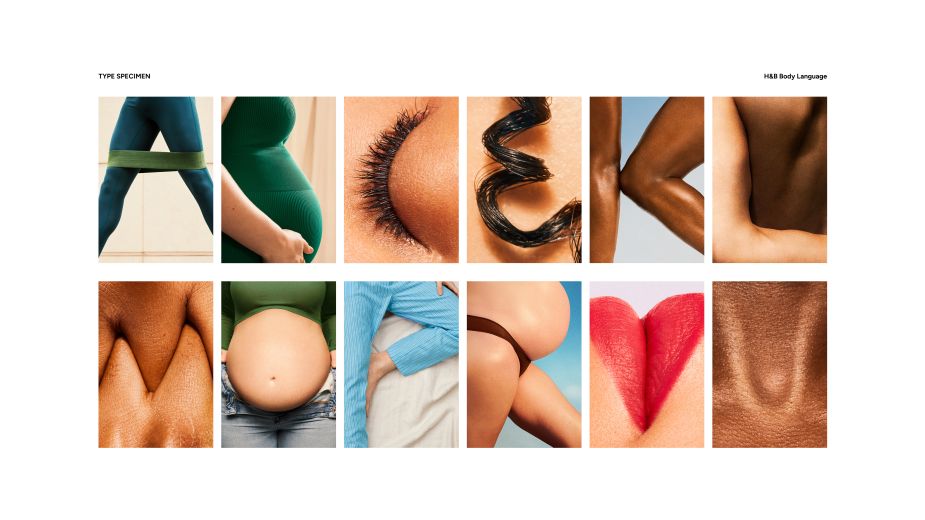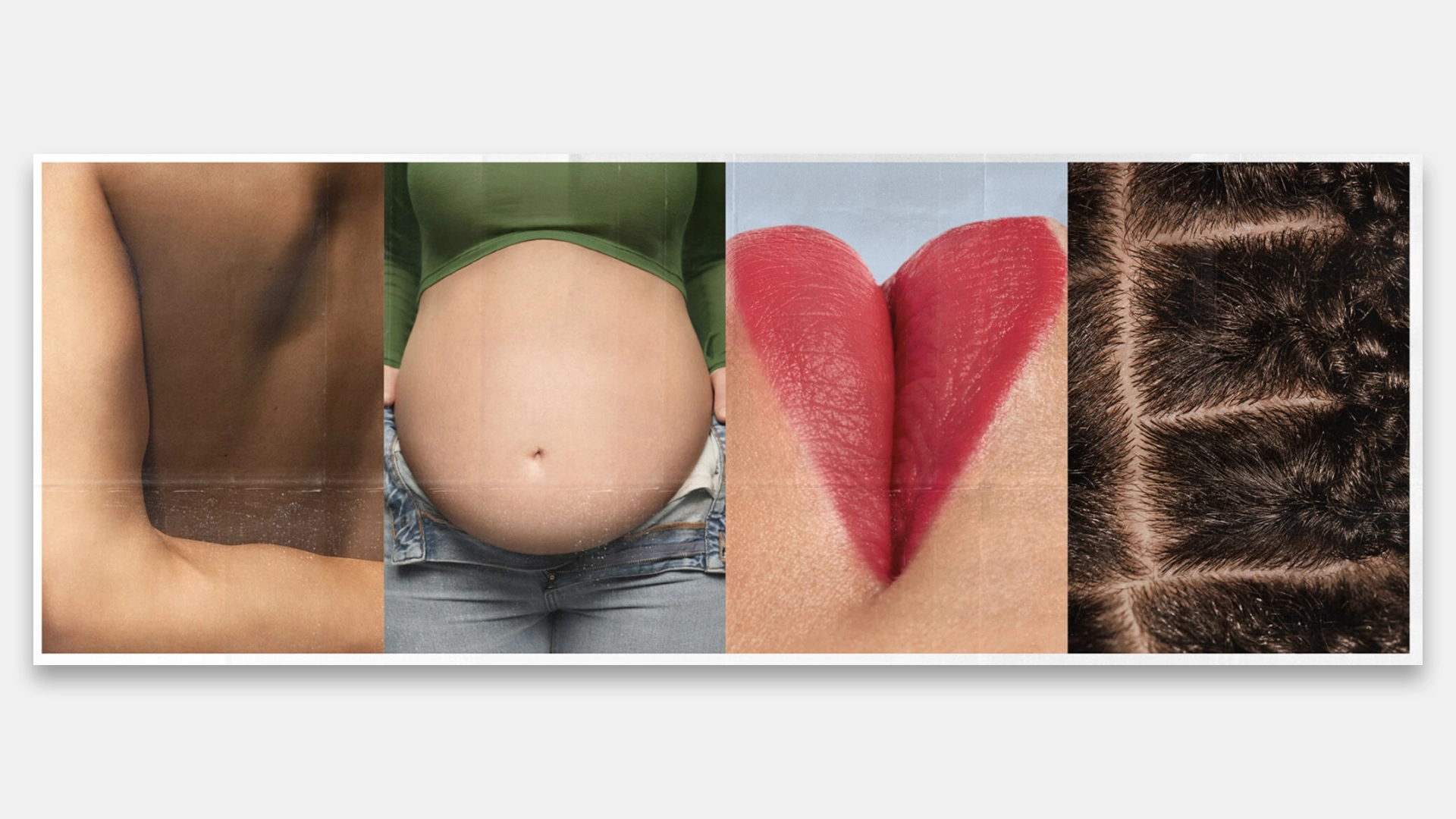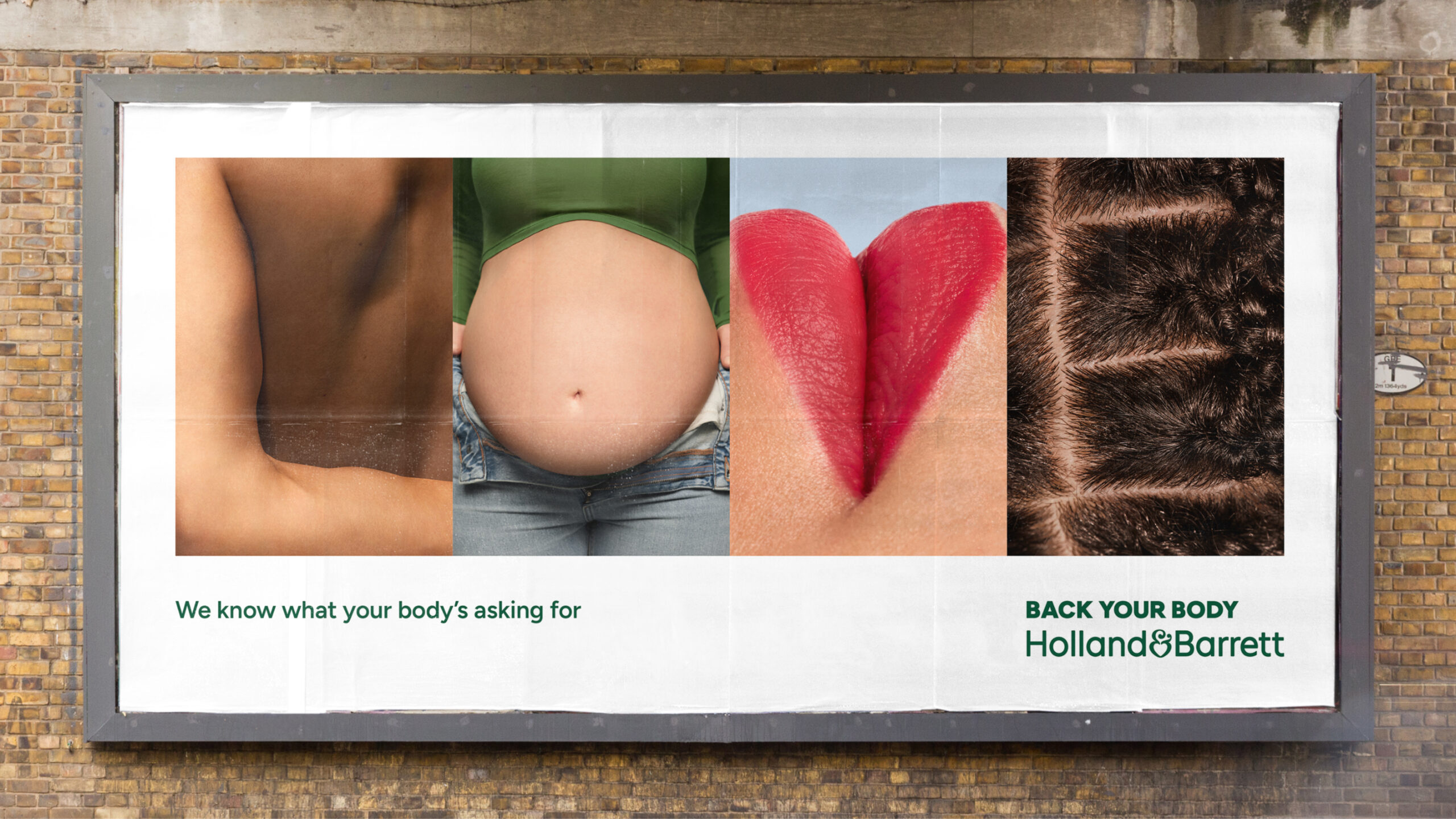
Ever wondered what a font made of body parts looks like?
Holland and Barrett's new typeface is a celebration of all things human.
And now for something completely different. Bringing new meaning to the concept of the body font, wellness retailer Holland and Barrett has unveiled a new campaign featuring a typeface made entirely out of body parts.
As part of its new 'Back your body' platform, Holland and Barrett has revealed a series of billboards designed by Lucky Generals, featuring letters made out of various parts of the human body. It's not the first time we've seen body parts form a typeface, but it's one of the most striking examples yet. You won't find anything like this among the best free fonts.
"As a nation, we’re not as proactive with our health as we’d like to be," reads Lucky Generals' case study. "But with Holland & Barrett, we’re on a mission to change that, with the launch of our new brand platform Back Your Body – acting as both a rallying cry to the nation and an assertion of Holland & Barrett’s expertise and unmatched wellness offering."
"For our launch campaign, we started with the insight that we often take our bodies for granted. We struggle to find the time to listen, until something goes wrong. To change that we decided to step back and give the body the mic. To let it deliver a message no-one could ignore."